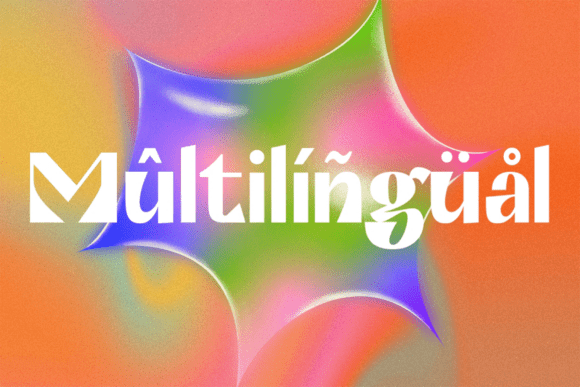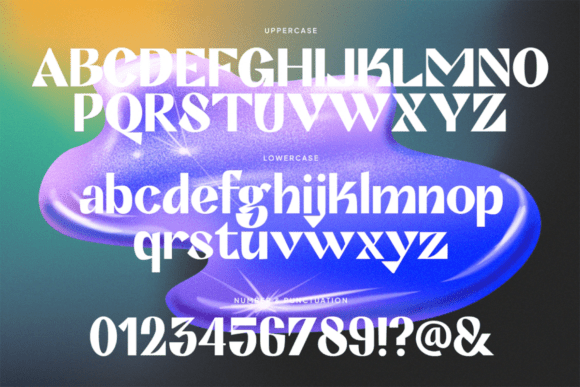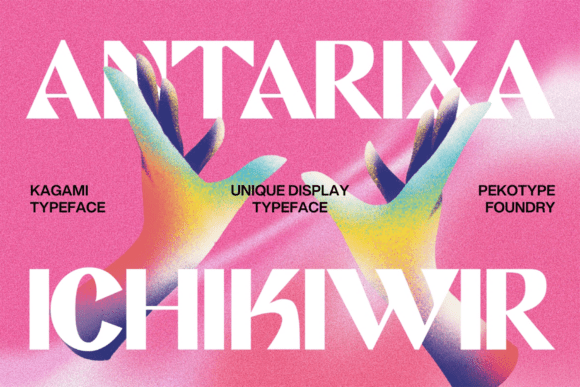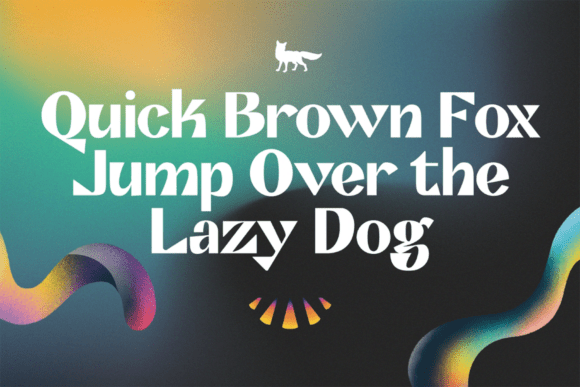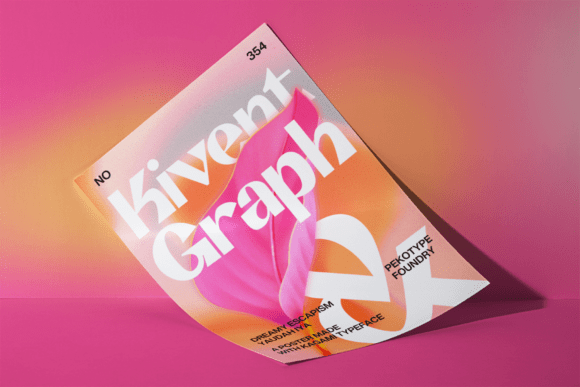
Introduction to Kagami Font
KAGAMI DISPLAY’s bold and distinctive style characterizes a display typeface.
It stands out with unique letterforms and a strong and impactful visual presence Perfect for eye-catching designs, Kagami’s boldness adds a touch of individuality and flair to any project, making it a great choice for attention-grabbing headlines, posters, and branding materials.
Key Features of Kagami Font
Kagami Font offers exceptional quality and versatility, making it a valuable addition to your design toolkit. Whether you’re creating for personal projects or commercial use, Kagami Font delivers professional results.